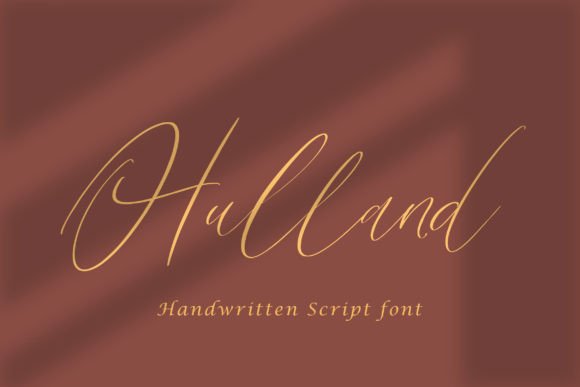
Are you searching for the perfect font to set the tone for your wedding invitations or add a touch of elegance to your branding? Look no further than the Hulland script font! Created by the talented team at Bellinghamtype, this font family is the epitome of refinement and sophistication.
With its delicate and graceful design, Hulland script font is the ideal choice for any occasion that requires a touch of elegance. Whether you're planning an intimate ceremony or a grand celebration, this font is sure to leave a lasting impression on your guests. Its intricate flourishes and sweeping strokes make it a standout choice for wedding invitations, menus, place cards, and more.
But Hulland script font isn't just limited to wedding-related designs. Its timeless design and versatility make it a great choice for any project that requires a touch of sophistication. Whether you're designing a luxury brand, a high-end product, or simply want to add a touch of elegance to your social media graphics, Hulland script font is the perfect choice.
One of the best features of this font is its PUA encoding. This means that you can easily access all of the glyphs and swashes, allowing you to create custom designs and add your own personal touch. The possibilities are endless with Hulland script font.
So why settle for a generic font when you can elevate your designs with the exquisite Hulland script font? Its captivating design and eye-catching flourishes will leave a lasting impression on your audience, making it the perfect choice for any project that requires a touch of elegance and refinement.